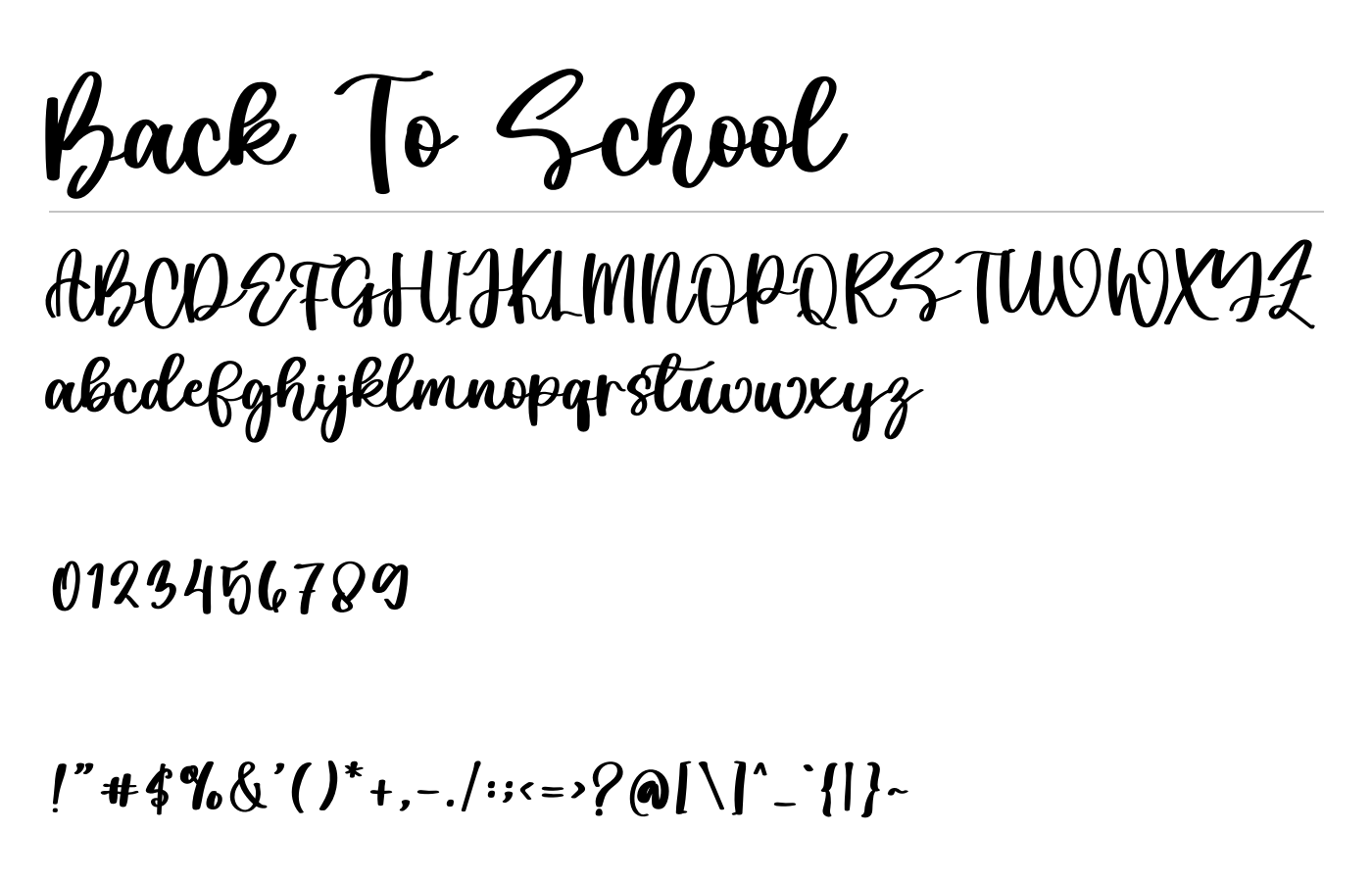
Back To School is a lively, hand-lettered script font with a playful and modern feel. Its casual, brush-style strokes with varying thicknesses create an inviting and friendly appearance, perfect for projects that want to communicate warmth and creativity. This font works wonderfully for invitations, branding, posters, and any design needing a fun, approachable touch.
Back To School Font
About Back To School Font
| Font family | Back To School Font |